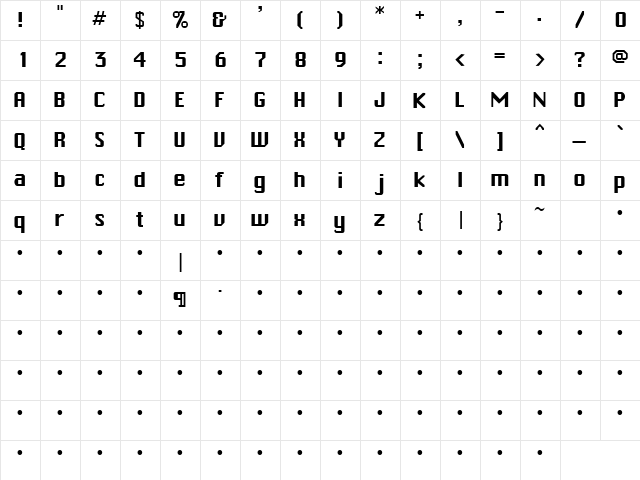
QTChicagoland Regular
Design Context for QTChicagoland Typeface
QTChicagoland is a composed and adaptable typeface that performs quietly and consistently across a wide range of design contexts.